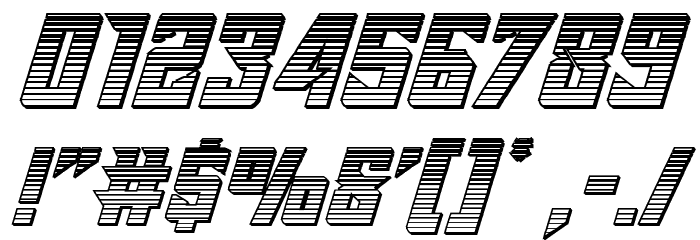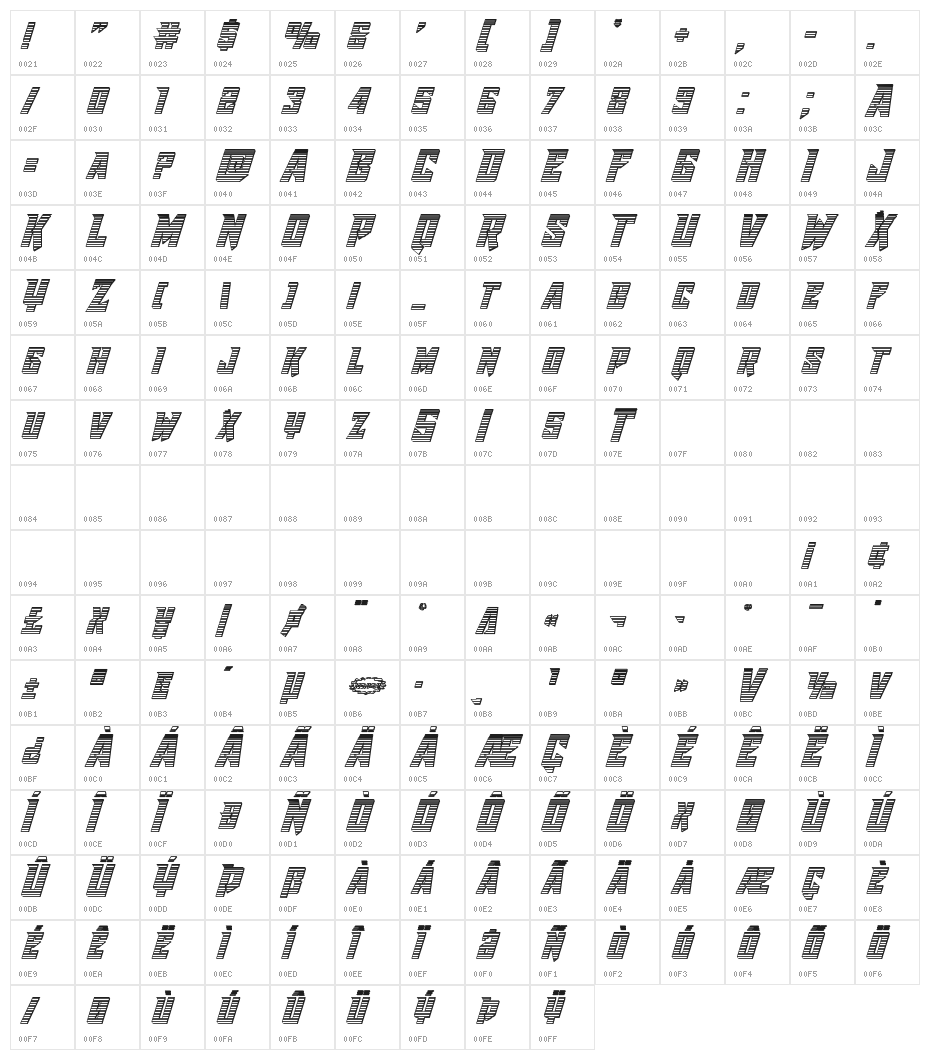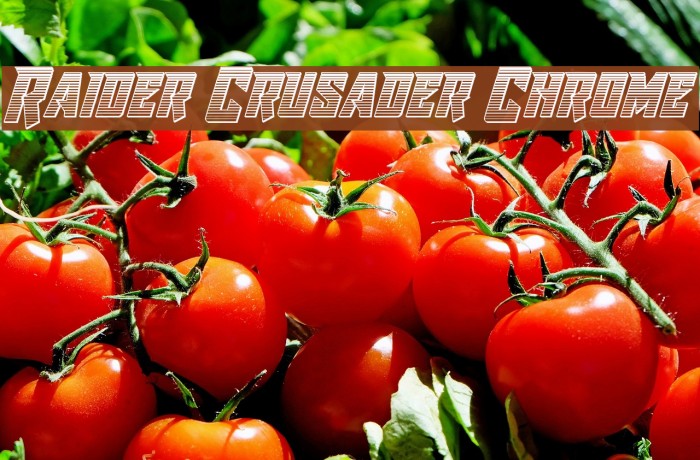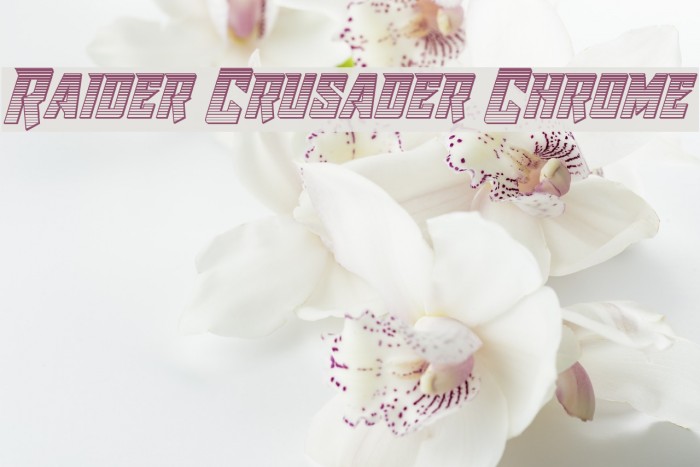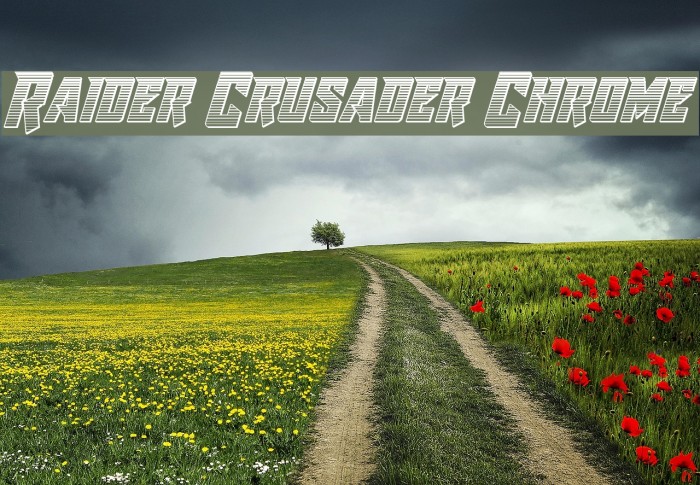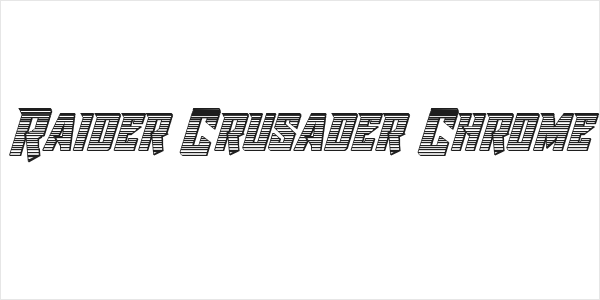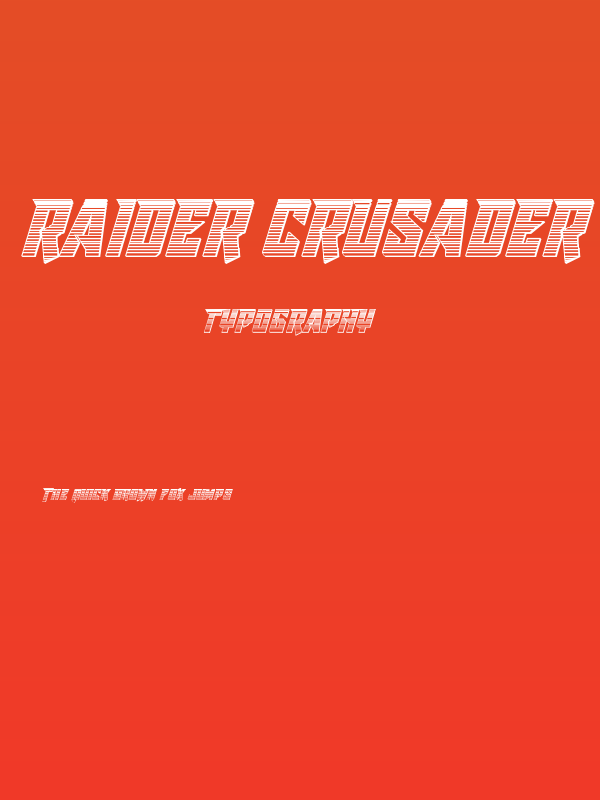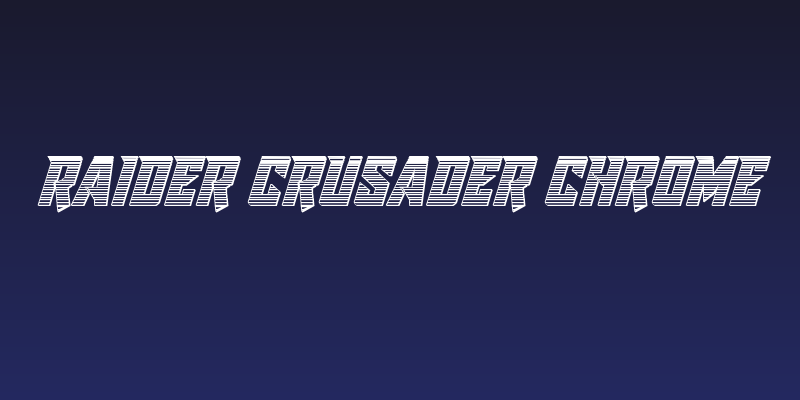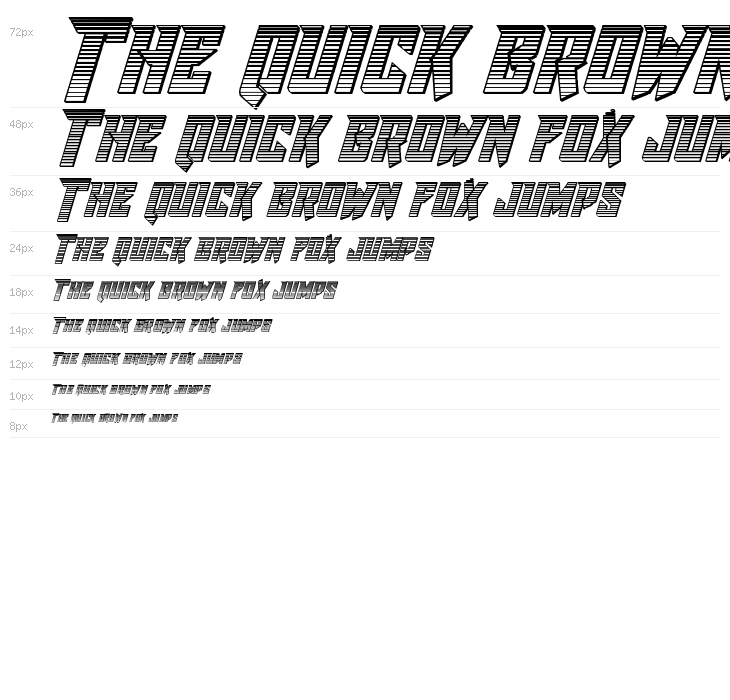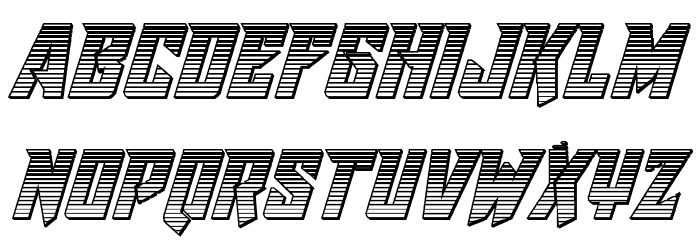
Raider Crusader Chrome Font
Raider Crusader Chrome Description
This font features a bold, dynamic design with a three-dimensional, chrome-like appearance. The letters are constructed with horizontal lines that create a sense of depth and movement, reminiscent of a futuristic or industrial aesthetic. The angular shapes and sharp edges give it a strong, assertive presence, making it ideal for attention-grabbing headlines or logos. The uppercase and lowercase letters maintain a consistent style, while the numerals and special characters complement the overall design with similar geometric elements.
| Overall Style | Futuristic, Industrial |
| Proposed Projects | Ideal for projects requiring a strong visual impact, such as sports team branding, automotive logos, video game titles, or sci-fi themed posters. |